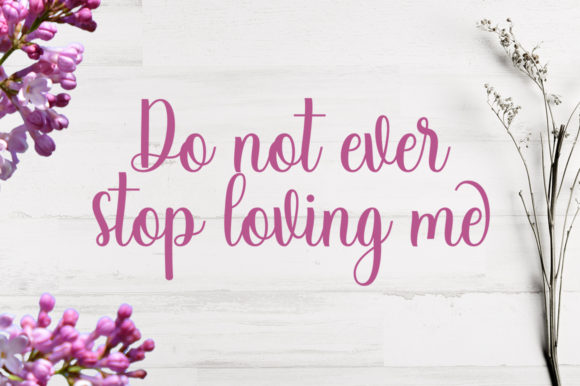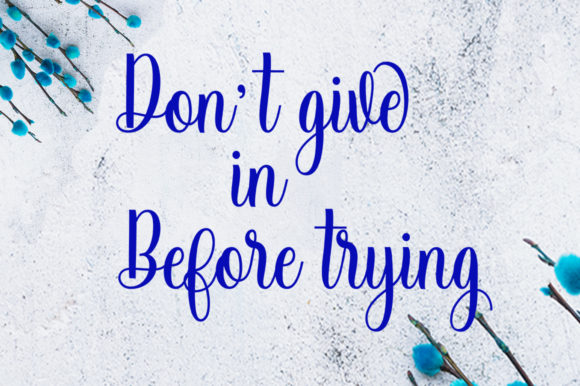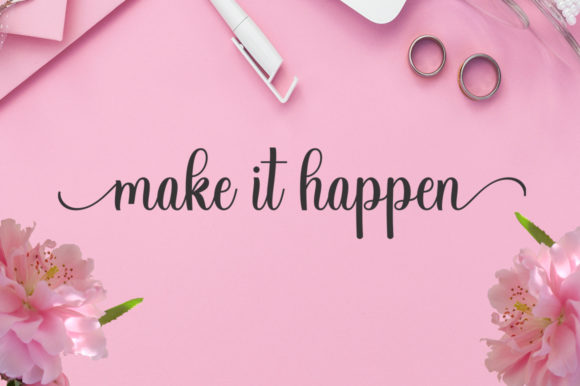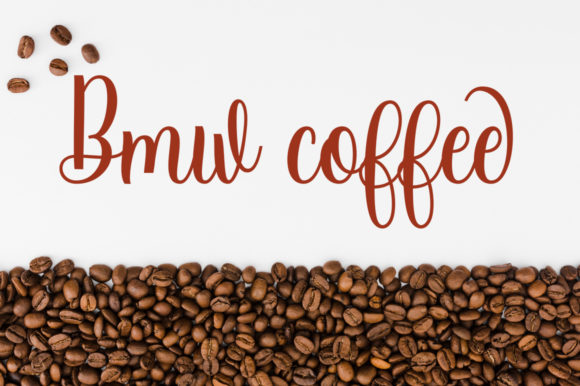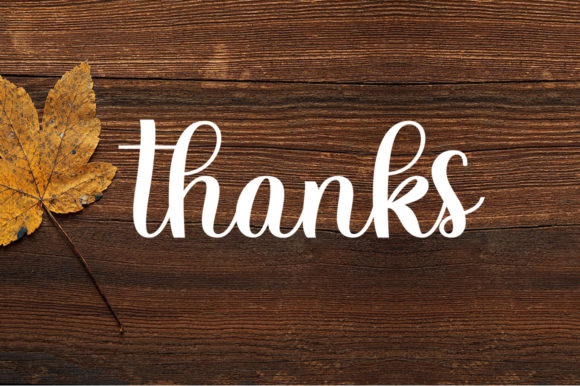
The Quest for the Perfect Font: Discovering Austina
I still remember the time I was working on a wedding invitation project, and my client asked for a font that was both elegant and playful. I scoured the internet, tried out countless fonts, but none seemed to fit the bill. That was until I stumbled upon Austina, a beautiful script font that has since become one of my go-to choices. In this article, I’ll share my experience with Austina, its features, and how to make the most of this gorgeous font.
Austina: A Modern Script Font with a Touch of Whimsy
Austina is a modern script font that boasts dynamic and pretty swashes, making it perfect for logos, greeting cards, stationery, wedding invitations, and more! This font is PUA encoded, which means you can easily access all the cute glyphs and swashes. Additionally, it features a wealth of special features, including alternate glyphs and ligatures.
My Honest Review of Austina
• ✨ Elegant and modern script style
• ✅ Dynamic and pretty swashes
• 🎉 PUA encoded for easy access to glyphs and swashes
• 🔥 Features alternate glyphs and ligatures
• 🤔 Some swashes may not work well in certain platforms or software
• ⚠️ Limited language support
The Story Behind Austina: Designer Inspiration
Austina was designed with the intention of creating a beautiful, modern script font that would be perfect for creative projects. The designer aimed to create a font that was both elegant and playful, with a touch of whimsy. With its dynamic swashes and pretty glyphs, Austina is sure to bring a touch of sophistication to any design.
Q: What is PUA encoding, and how does it benefit Austina?
A: PUA (Private Use Area) encoding allows designers to access a range of glyphs and swashes that are not available in standard fonts. In the case of Austina, PUA encoding makes it easy to access the font’s beautiful swashes and glyphs.
Q: Is Austina suitable for body text?
A: While Austina is a beautiful font, it’s best suited for headlines, titles, or short paragraphs. For body text, a clearer font may be more suitable.